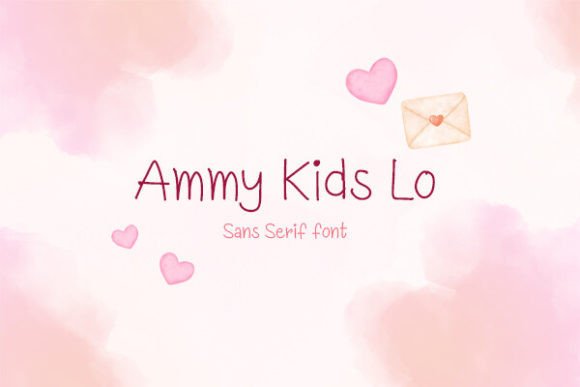
Step into a world of whimsical charm and playful elegance with Ammy Kids Lo, the font that captures the essence of youthfulness and joy. This delightful sans serif font, meticulously crafted by TanoiCartoonist, is a captivating creation that will add a touch of magic to your creative endeavors.
Immerse yourself in a symphony of handwritten strokes, each letterform infused with an undeniable charm that will leave you awe-inspired. Ammy Kids Lo's enchanting personality shines through its carefully designed curves and playful details, making it the perfect choice for adding a touch of whimsy to your projects.
Whether you're a seasoned designer seeking a unique and captivating font or a creative enthusiast looking to infuse your projects with a touch of lightheartedness, Ammy Kids Lo is your perfect companion. Its versatility knows no bounds, making it an ideal choice for a wide range of design projects:
- Wedding invitations: Let your wedding stationery exude charm and playfulness with Ammy Kids Lo. Its delightful aesthetic will set the tone for a joyous celebration, capturing the hearts of your guests from the very first glance.
- Thank-you cards: Express your gratitude in a truly unique way with Ammy Kids Lo. Its charming handwritten style will add a personal touch to your thank-you notes, leaving a lasting impression on the recipients.
- Quotes and greeting cards: Spread joy and inspiration with Ammy Kids Lo, the perfect font for creating visually stunning quotes and heartwarming greeting cards. Its playful nature will add a touch of cheer to any message, making it a delightful way to connect with loved ones.
- Logos and posters: Create eye-catching logos and posters that burst with personality using Ammy Kids Lo. Its distinct style will make your designs stand out from the crowd, leaving a lasting impression on your audience.
- Blogs and websites: Infuse your blog or website with a touch of whimsy and charm with Ammy Kids Lo. Its playful handwritten style will engage your readers, creating a welcoming and inviting online space.
- Apparel and accessories: Unleash your creativity and design unique and captivating T-shirts, bags, and other accessories with Ammy Kids Lo. Its charming aesthetic will turn your creations into must-have items that exude personality and style.